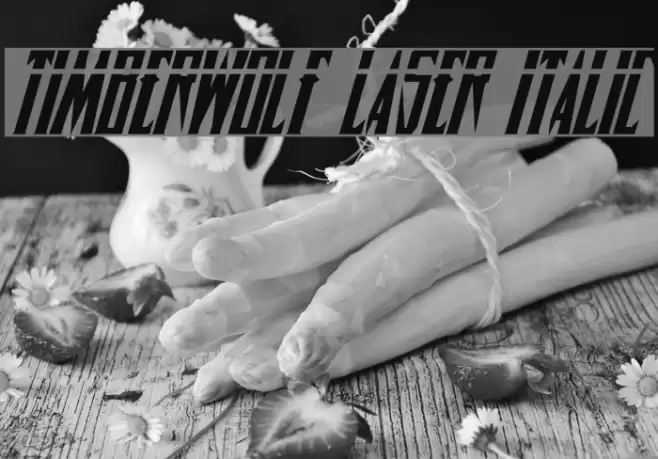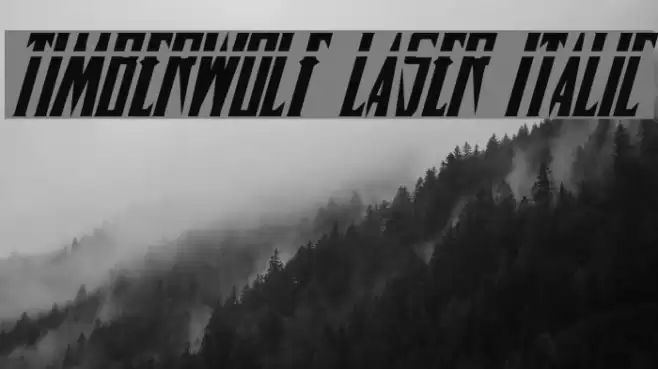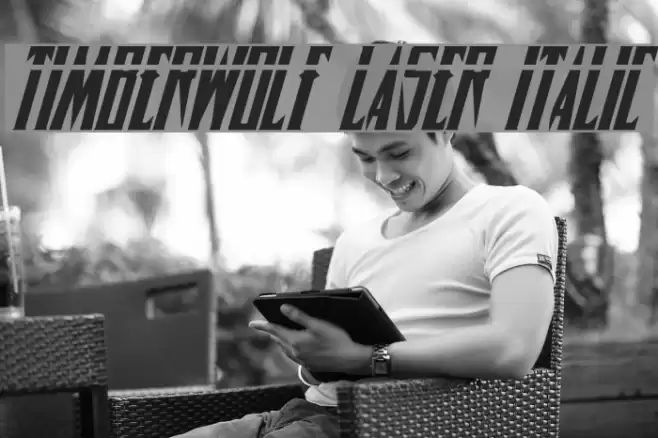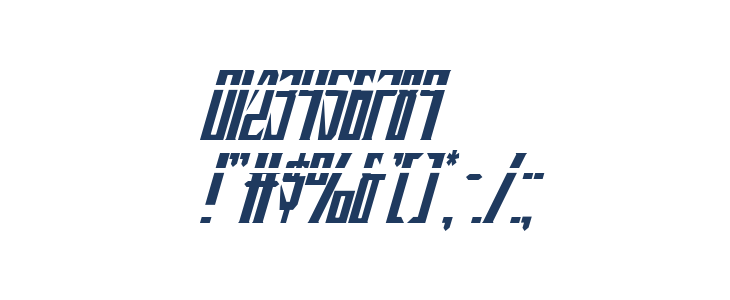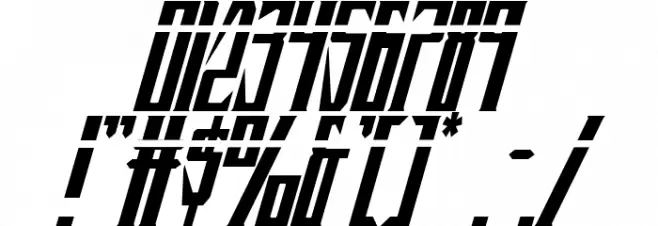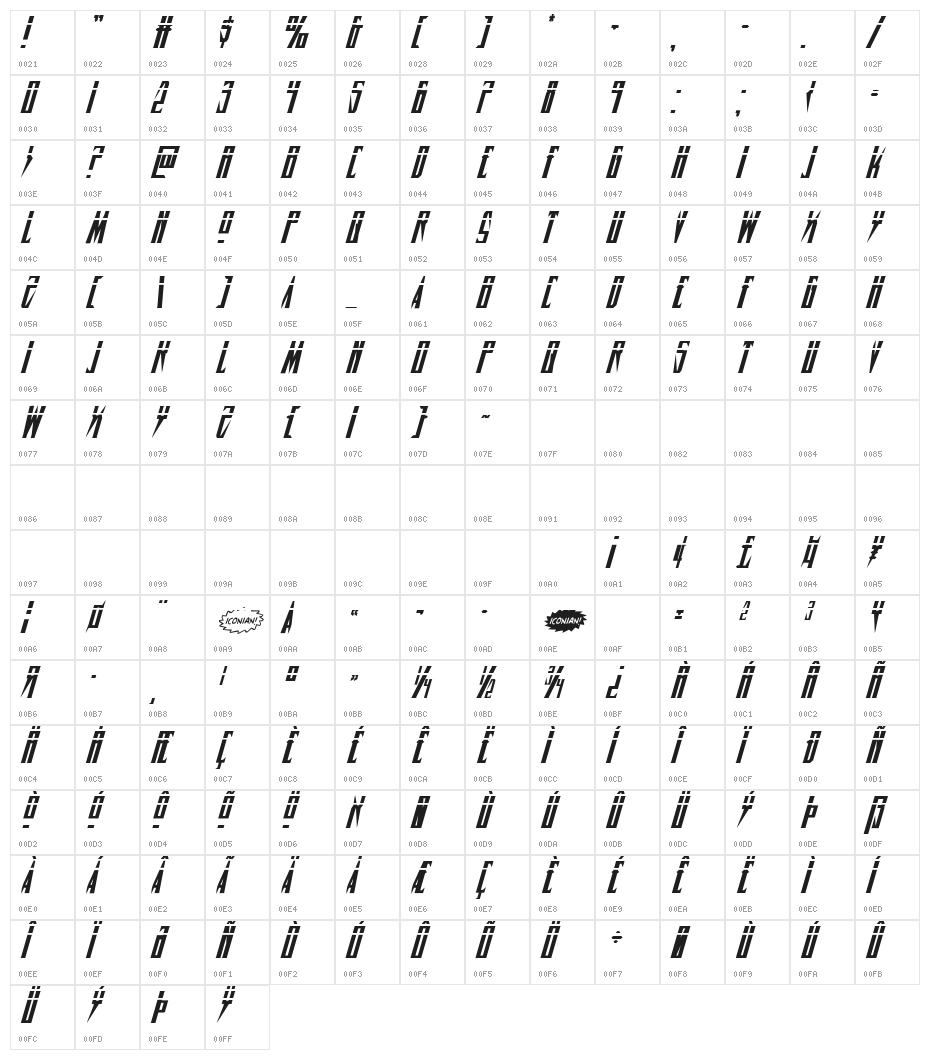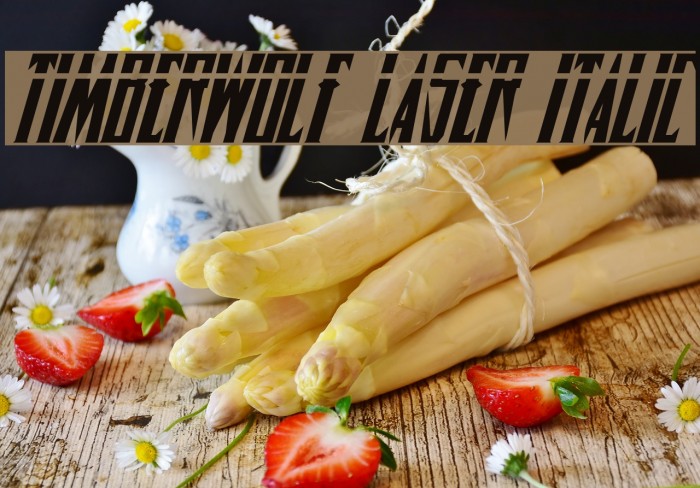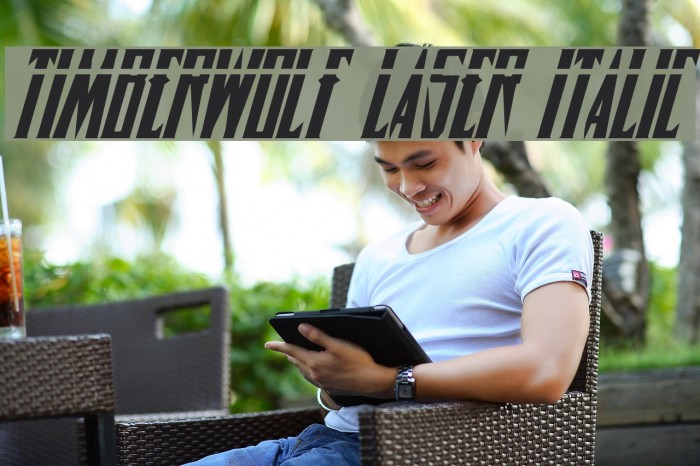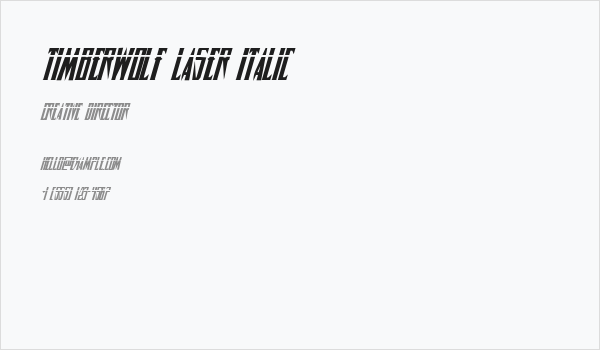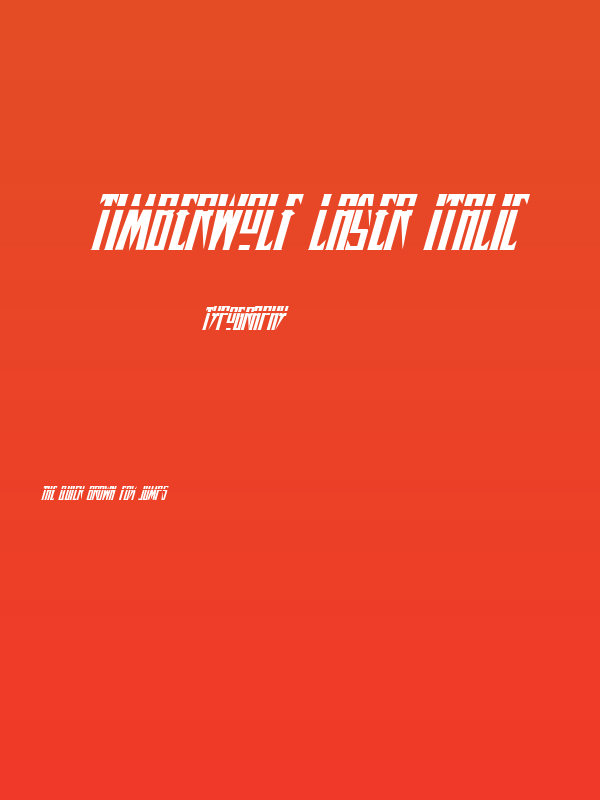
Timberwolf Laser Italic Font
Timberwolf Laser Italic Description
This font features a bold and dynamic style with a distinct italic slant, giving it a sense of motion and energy. The characters are sharply angular, with a futuristic and edgy appearance. The strokes are thick and consistent, providing a strong visual impact. The uppercase and lowercase letters maintain a cohesive design, with the uppercase being slightly more elongated. The numbers and special characters follow the same angular and bold style, ensuring uniformity across all glyphs. This font is ideal for projects that require a modern and assertive look.
A bold, italic font with angular, futuristic design from Uncategorized fonts.
- Proposed Projects: Ideal for branding, posters, video game graphics, and sci-fi themed projects.
- Character Spacing: Tight